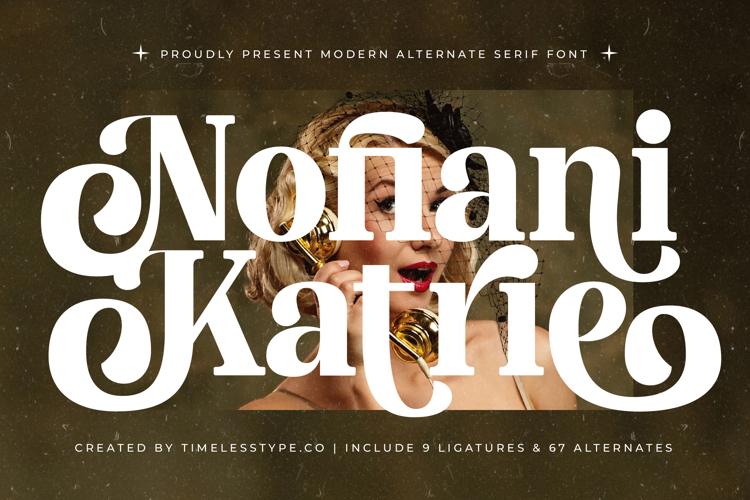
Nofiani Katrie - Modern Alternate Serif
Nofiani Katrie Typeface is a modern alternate serif font that merges bold retro-inspired character with refined decorative elegance. Featuring 9 ligatures and 67 stylistic alternates, this typeface offers designers creative freedom to craft unique and expressive typography. Its chunky letterforms, playful swashes, and ornamental curves give it a strong yet artistic personality, making it a standout choice for projects that demand vintage charm blended with modern sophistication.